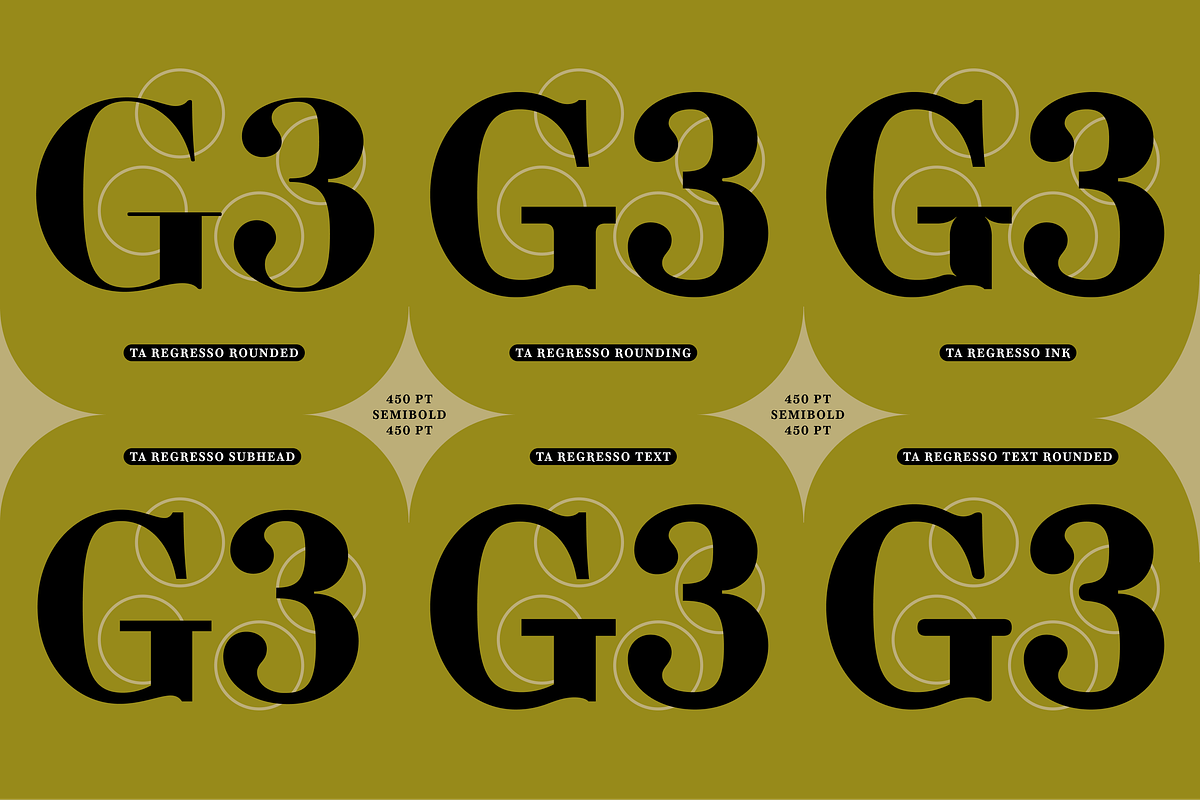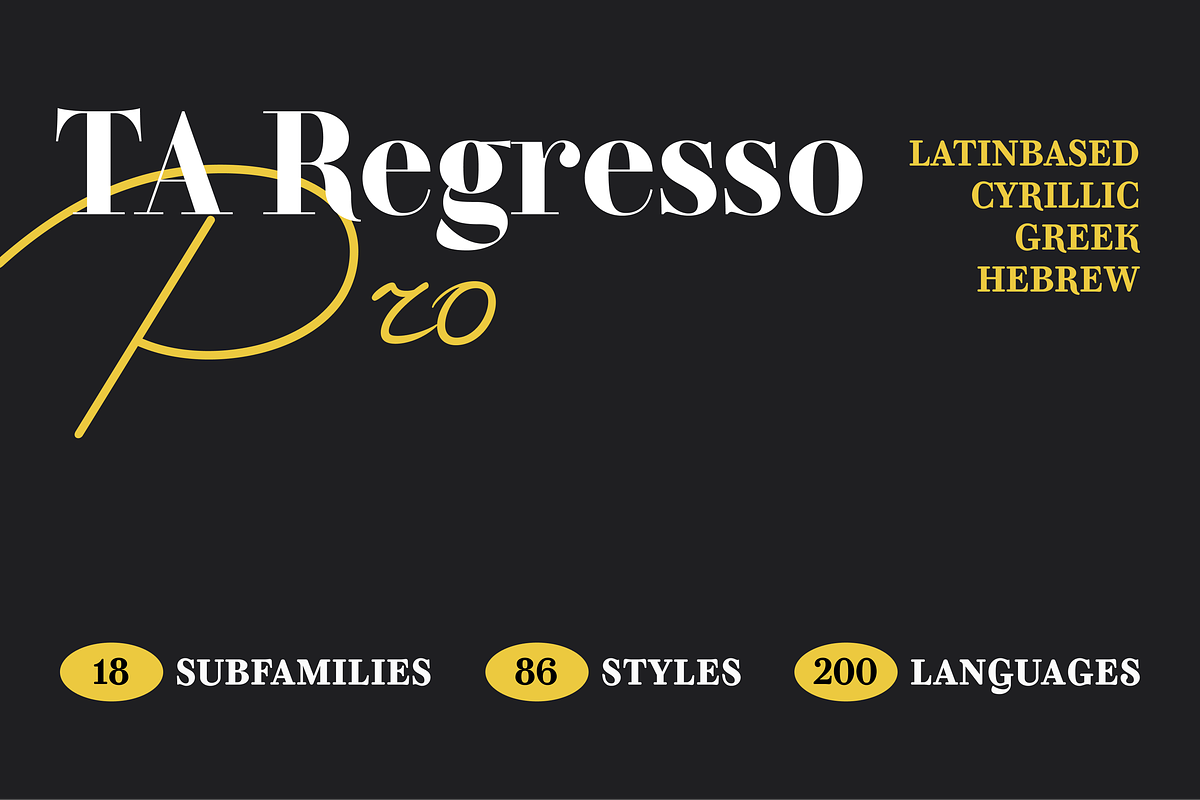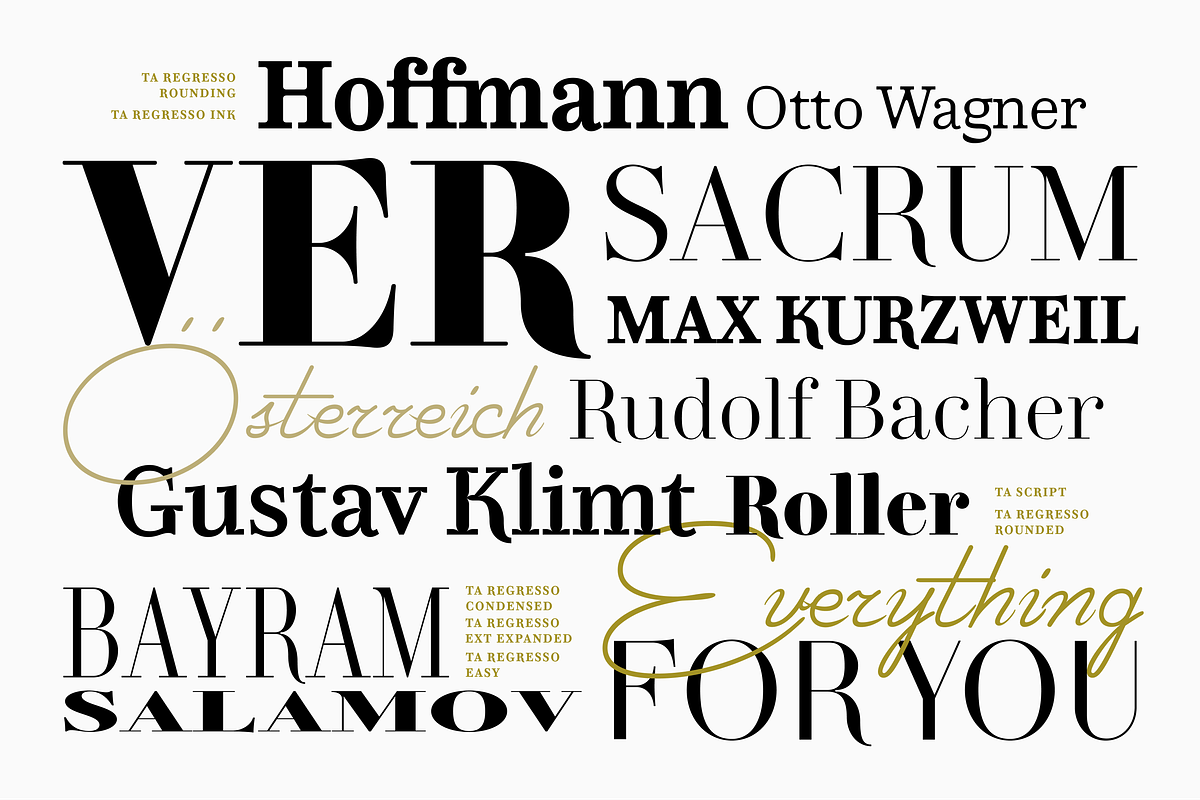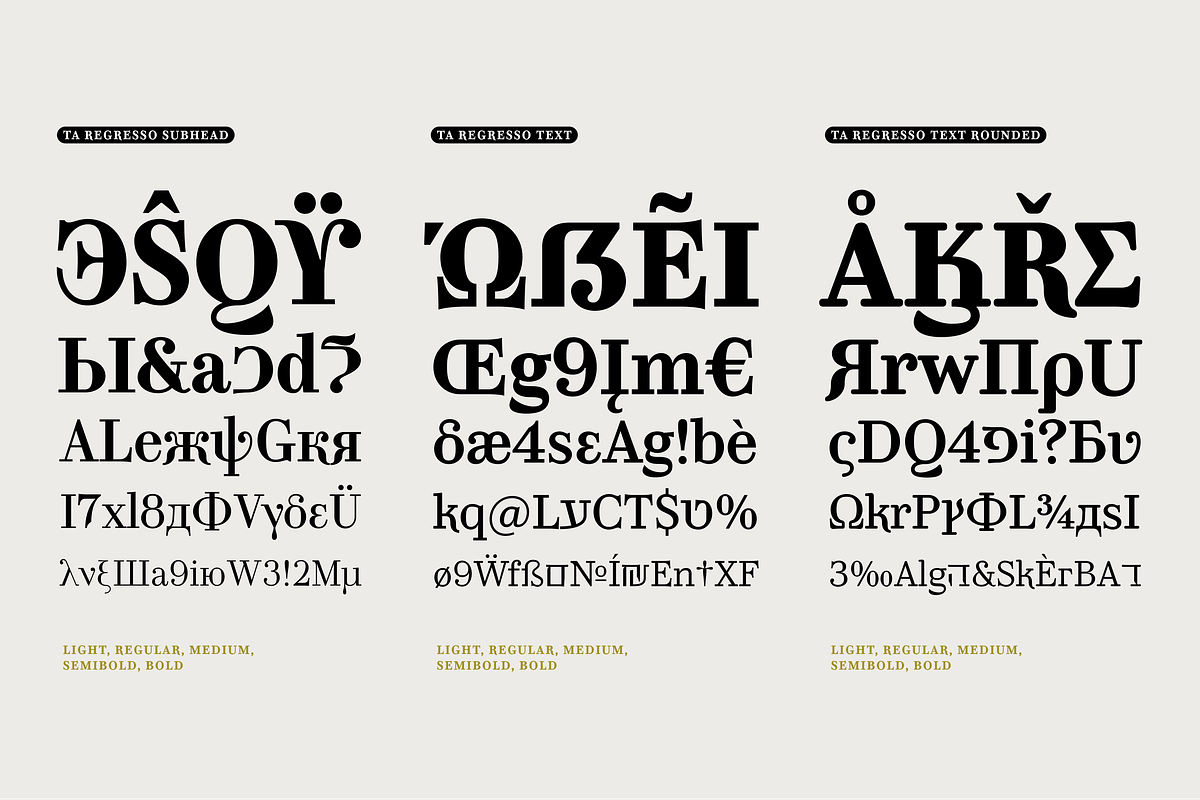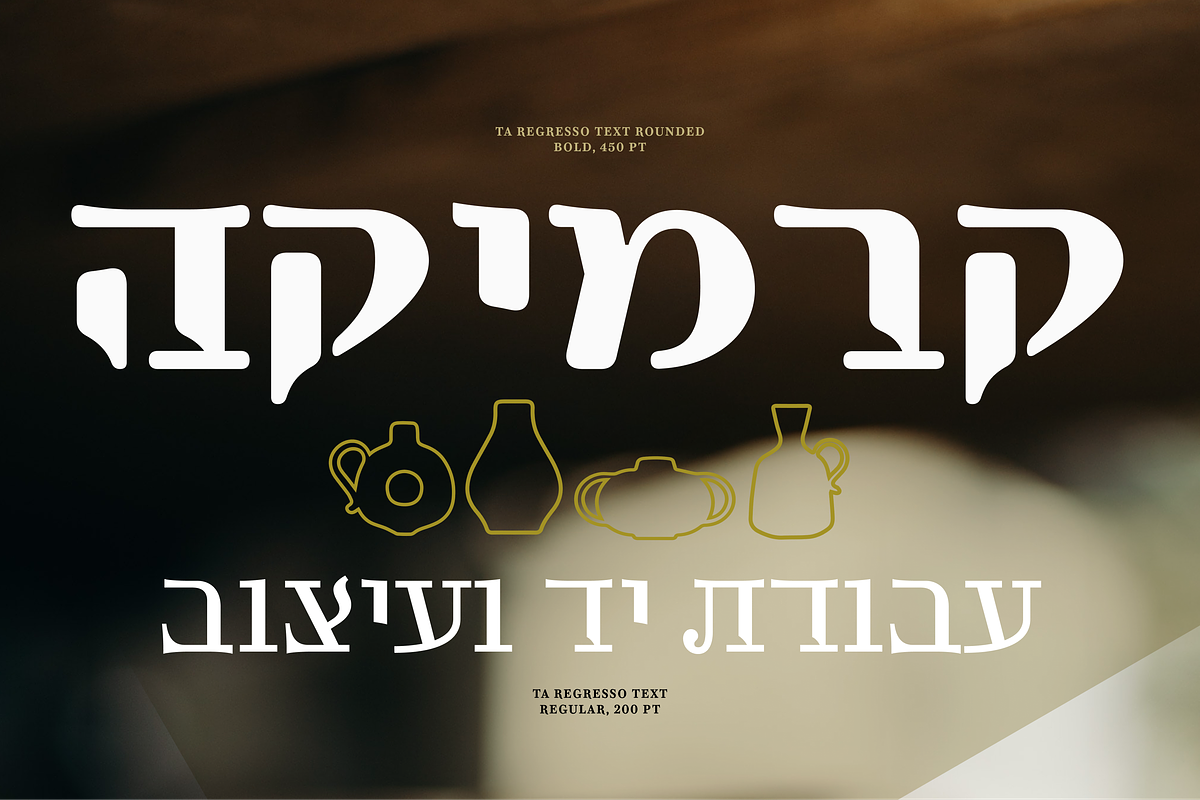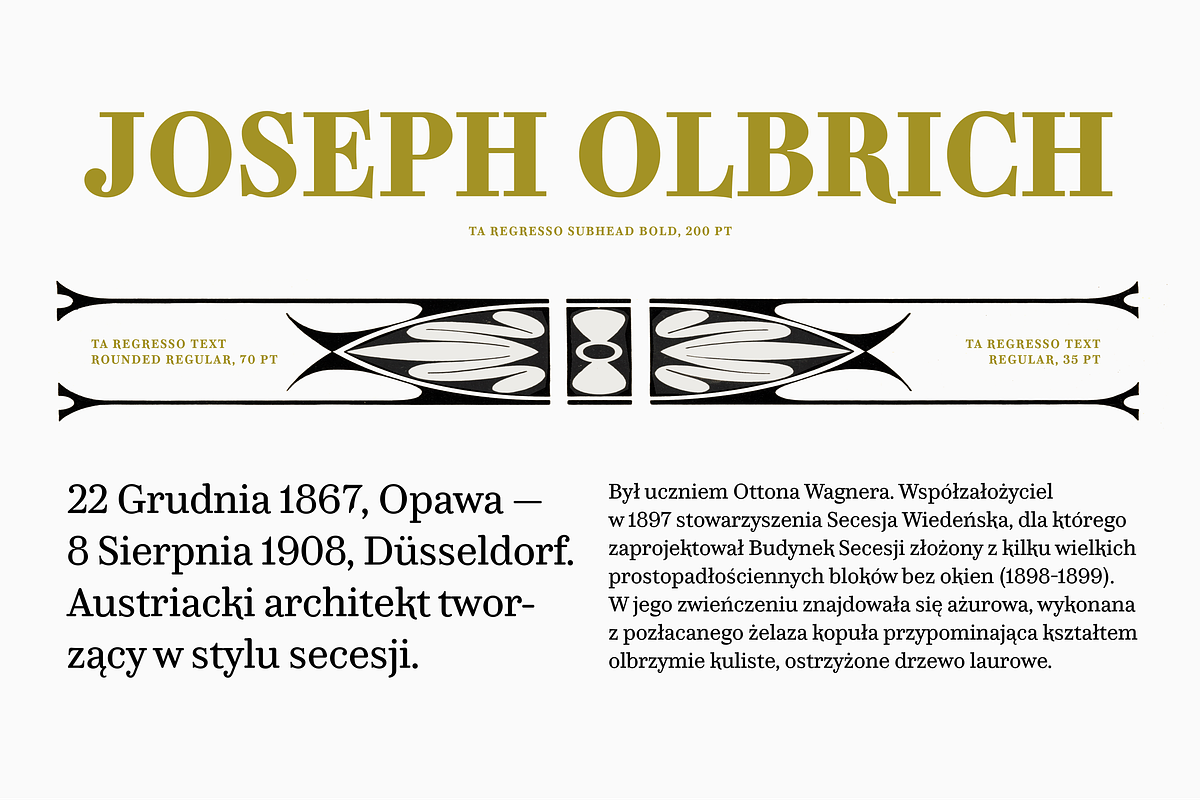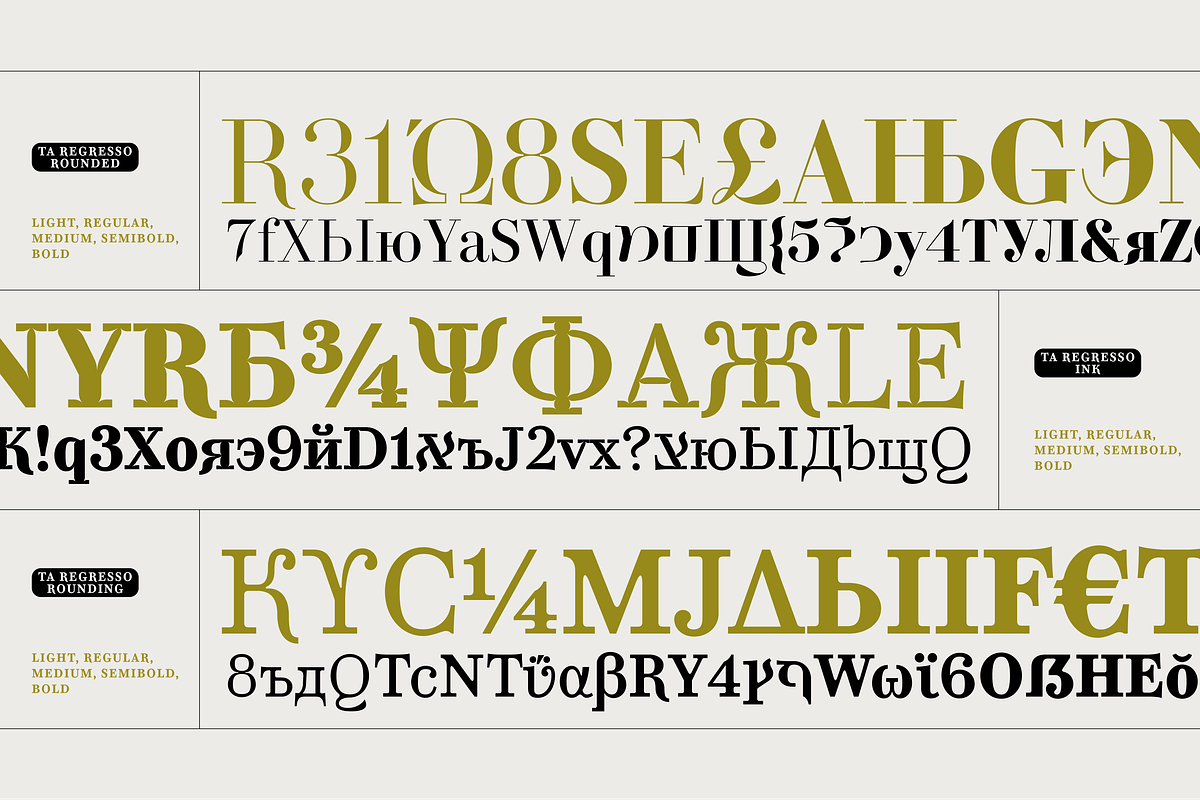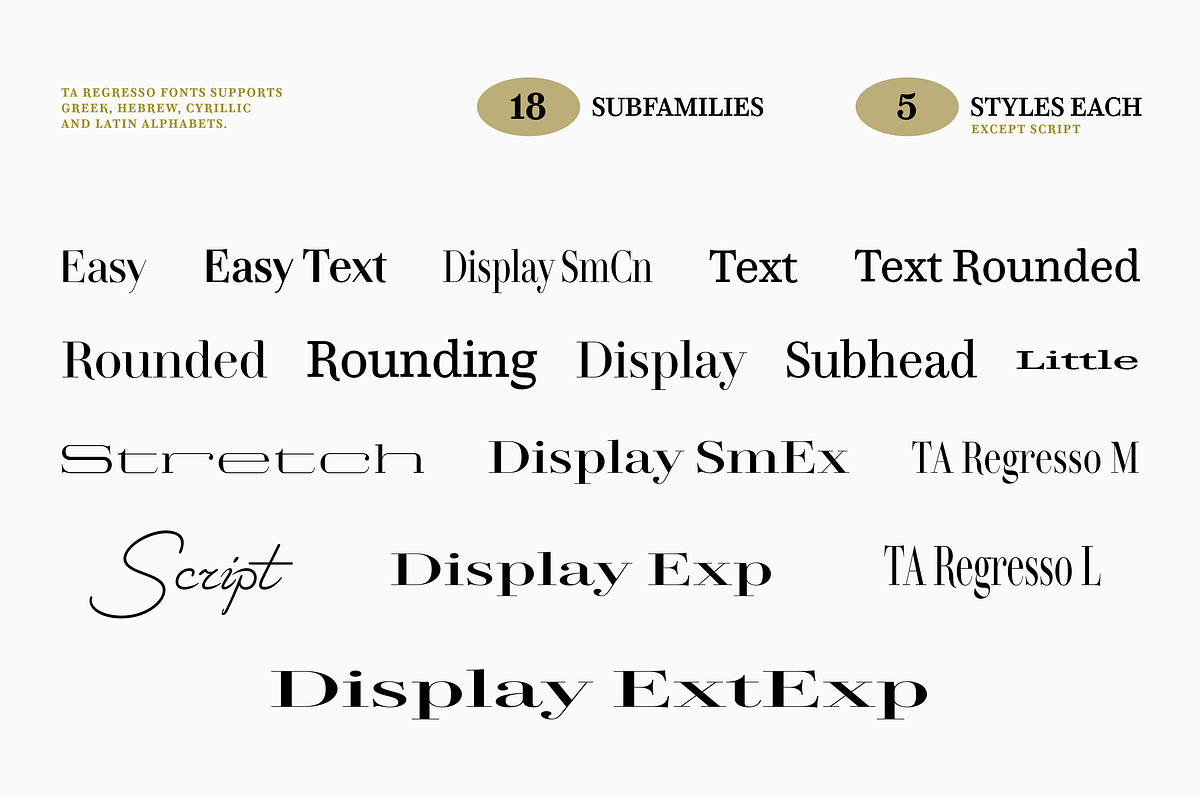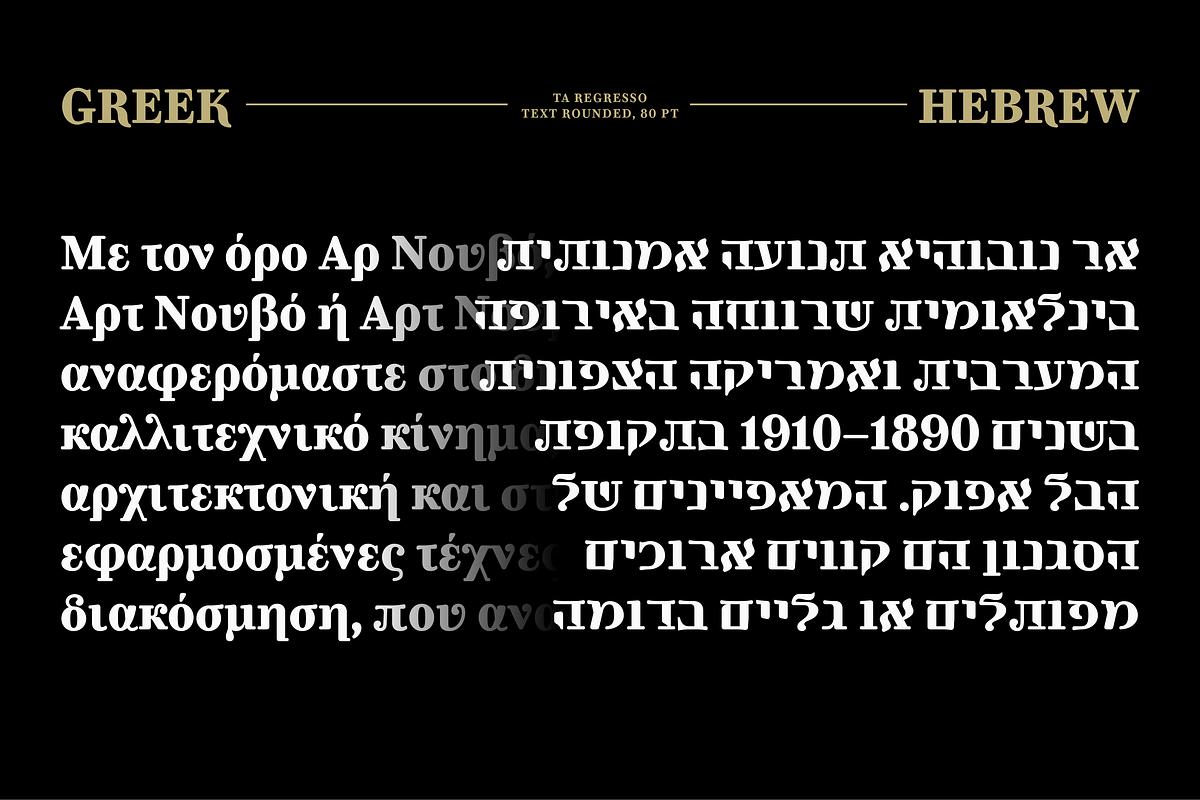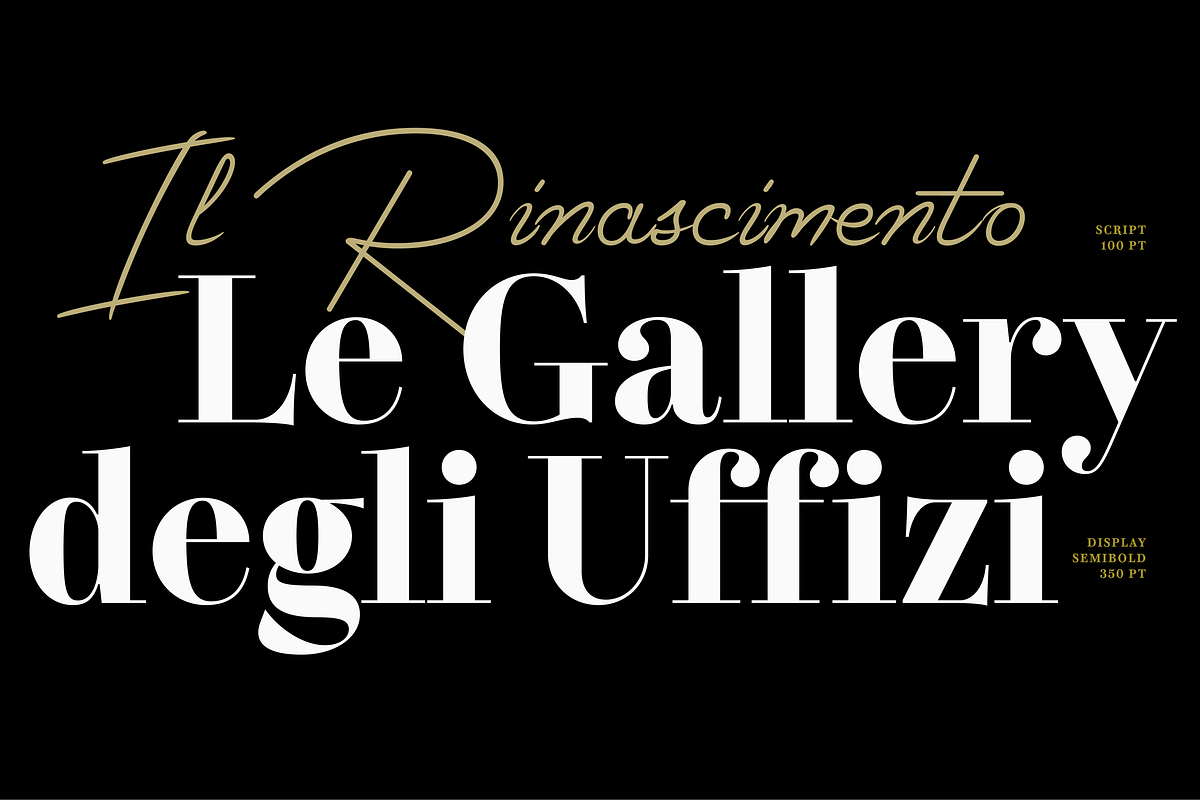
TA Regresso Display
TA Regresso PRO font is inspired by Didon and Bodoni fonts. A combination of a little Bodoni and a little Didon elements and a unique style and Text, Display, Subhead and about 80 styles, it is a font that gives the user a choice. TA Regresso font supports Greek, Hebrew, Cyrillic and Latin alphabets. After starting work on the font since February of last year, the font is ready today with constant revisions. Being open to learning, I sought help from experienced designers. I must mention that Yulia Gonina, the founder of Schrifteria Foundry, also helped me a lot to make Regresso good. With her knowledge and advice, the flaws in the font were eliminated. By the way, Viktor Baltus also helped me with his valuable advices. And I thank Aygül. In the HER logo I made for Aygül, the creation of the script font was inspired by her signature. I created a script font thanks to his support. In general, the HER logo is also one of the reasons for the creation of the TA Regresso font. I did some research about the alphabets of the supported languages so that Regresso is good. I paid a lot of attention to the correct design of the letters. I will fix the problems I missed in the next updates of the font. I would be happy if you send me your work when you use my font. I'm very interested in where you use my font.
- Type Designer: Tural Alisoy.
- Contributors: Alena Linnask (graphic design).
- TA Regresso PRO contains 200+ Latin and Cyrillic, Greek, Hebrew languages.